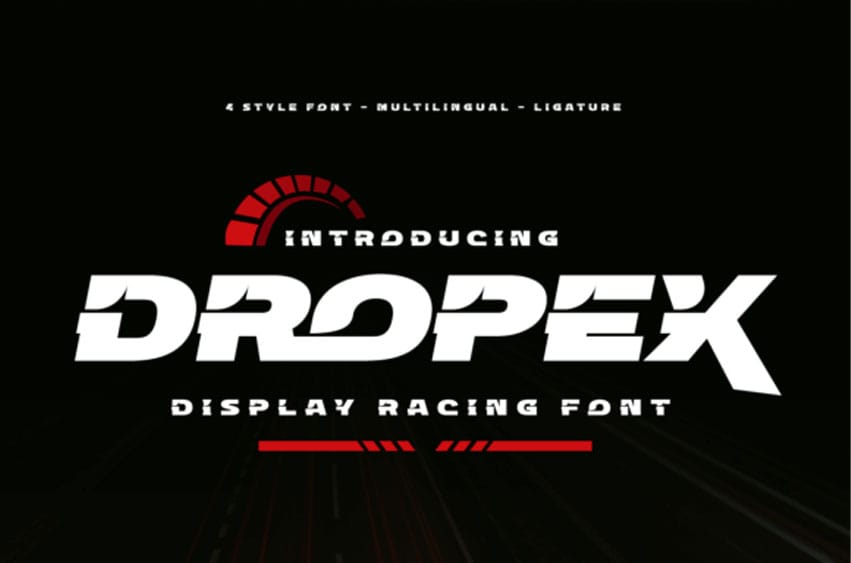
Dropex Font is a bold, strong, and uniquely shaped typeface that is masculine and easy to read. This font was designed with attention to detail to make your design project stand out from the rest. Using this font will definitely spice up any design project!